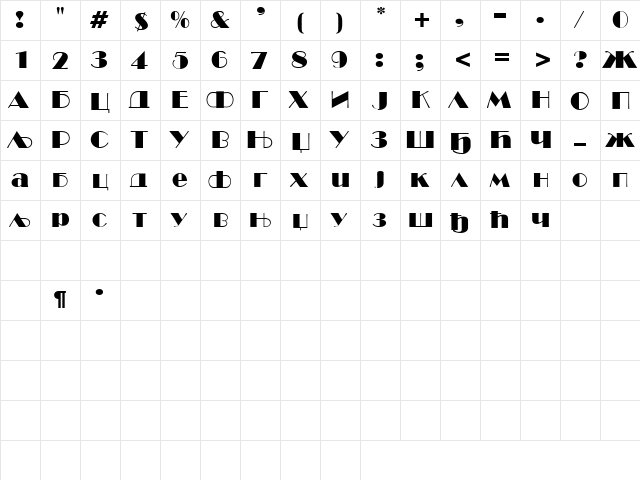
Broadway Cirilica Regular
Design Context for Broadway Cirilica Typeface
Broadway Cirilica is a composed and adaptable typeface that performs quietly and consistently across a wide range of design contexts.
Pro Tip: Use Broadway Cirilica in both headline and body roles to test its range before committing to a single application.